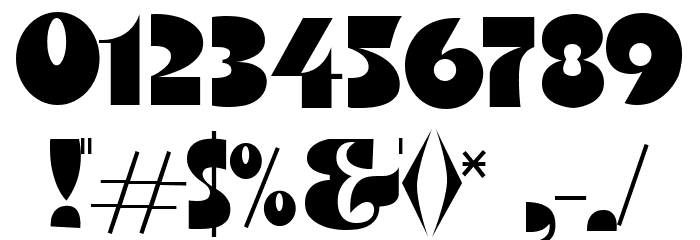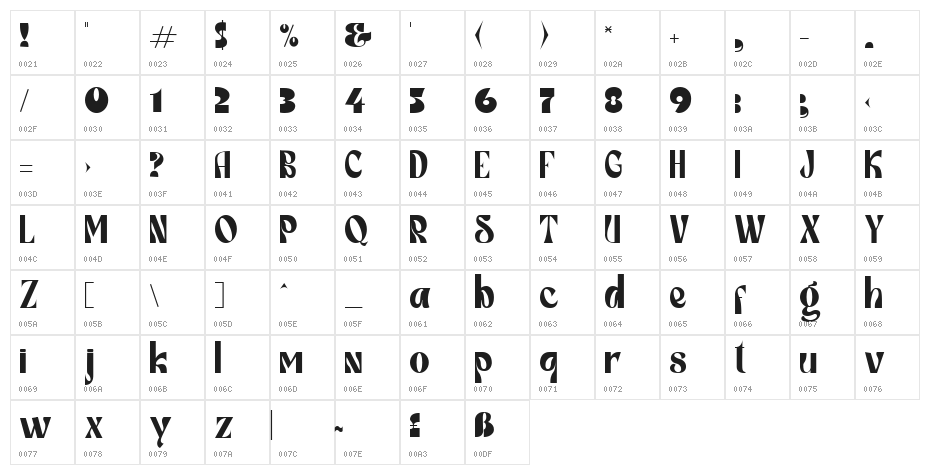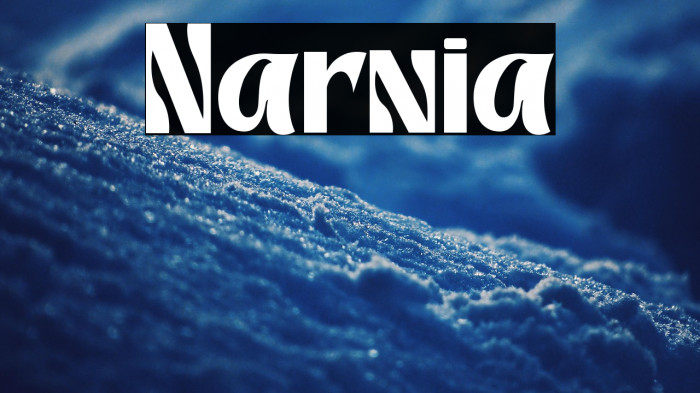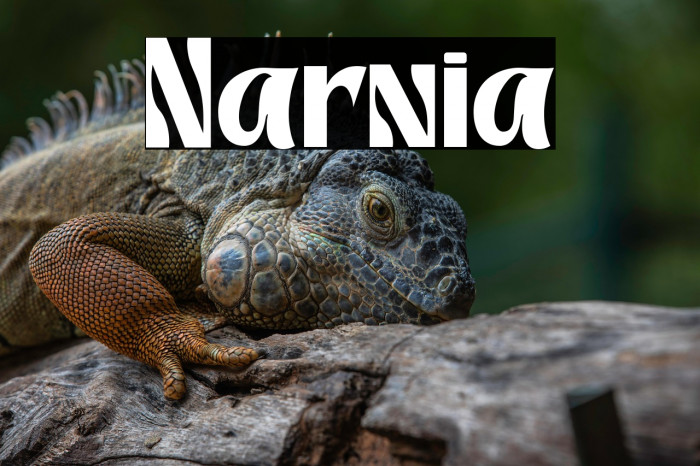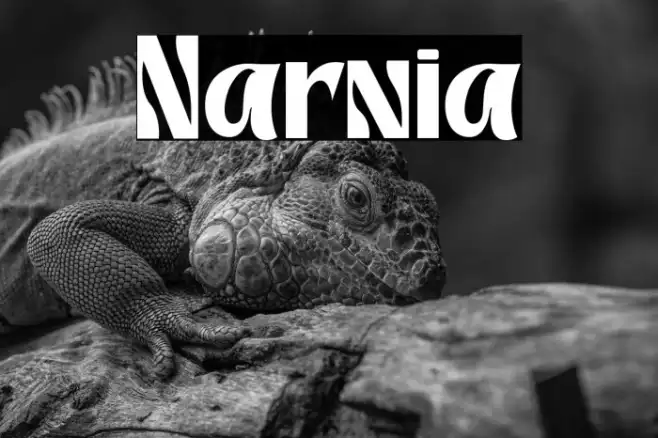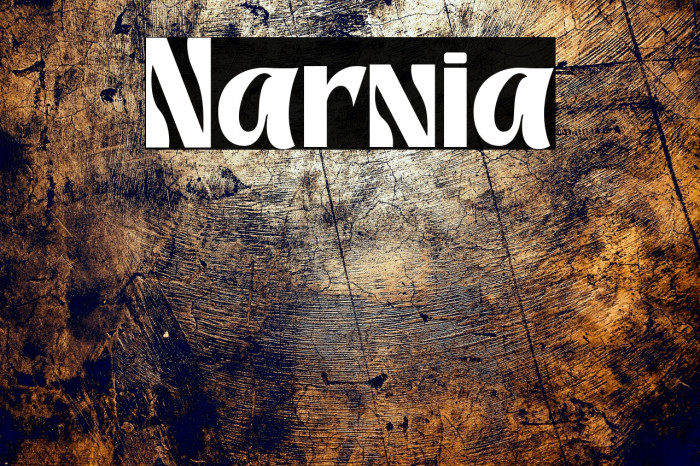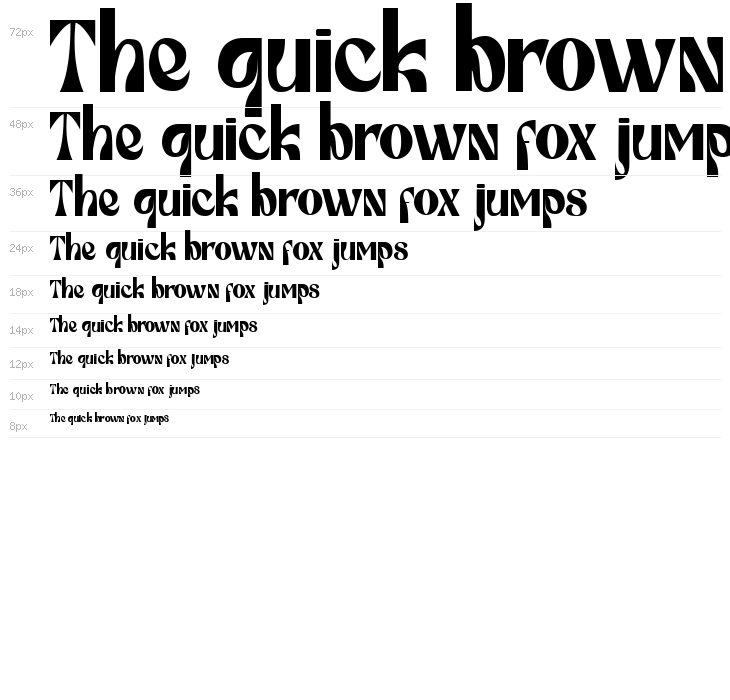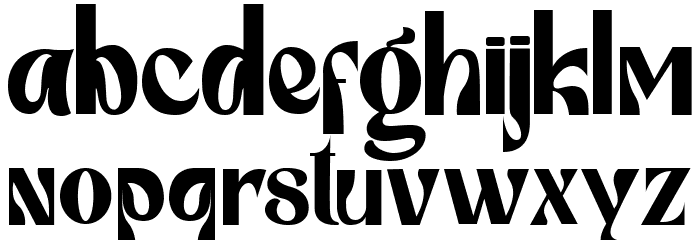
Narnia Font
Narnia Description
This font features a bold and dramatic style with high contrast between thick and thin strokes. The uppercase letters are characterized by their unique, artistic curves and sharp angles, giving them a distinctive and eye-catching appearance. The lowercase letters maintain a similar style, with some characters exhibiting playful and unexpected twists. The numerals are robust and consistent with the overall bold aesthetic. Special characters are creatively designed, adding to the font's decorative appeal. This font's striking design makes it suitable for projects that require a strong visual impact.
| Proposed Projects | Ideal for branding, poster design, book covers, and any project needing a dramatic and artistic touch. |